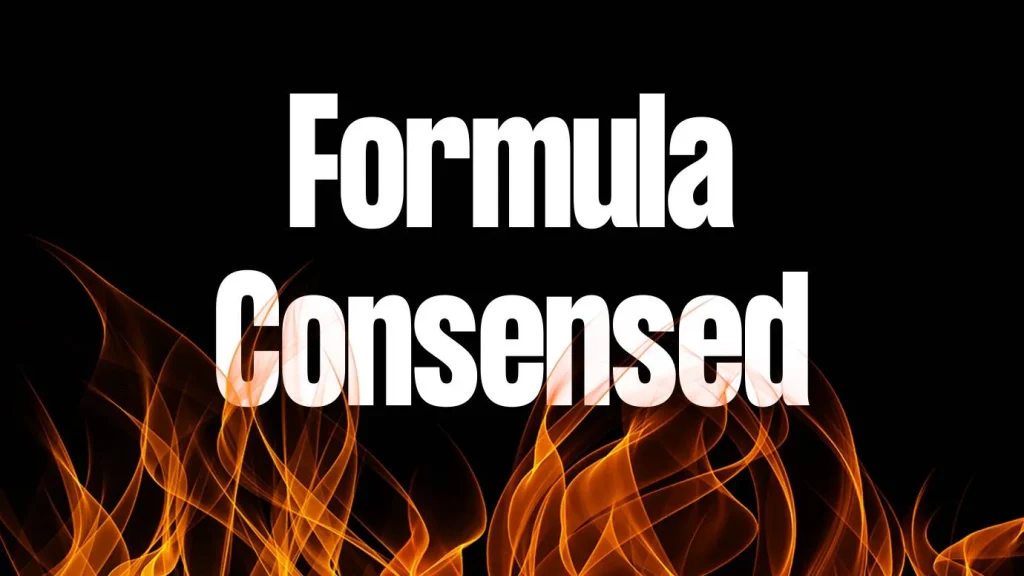
Mathieu Desjardins designed this nice and elegant design. Formula Consensed Font style has a strong modern feel to all letters, along with nice strokes. This is why modern designers prefer this typeface.
Using this style can make a design stand out and unique. Hence, once a designer understands its competences, they will use it in many designs.
Considering its keen features, it would be perfect when paired with demon slayer font to make amazing designs for the project.
In addition to bold editorial statements and graphic-heavy prints, this typeface can also be used as a simple logo and simple branding. Your designs will stand out and be unique with this new type.
What Are the Qualities of Formula Consensed Font?
Advantages of Using Formula Consensed Font
The letters of font demonstrate its versatility. With full concentration and experience, each letter has been created. Therefore, its letters didn’t contain any errors.
In addition to creating covers and poster designs, you can also create business cards, logos, and product designs with clean and elegant textures. Web development can also be done on it.
The letters of this typeface, have a very unique look there are few characters in every letter of this typeface that has the right height, and width, and idealized space between the letters. The design of this typeface makes this lettering an incredible choice for dynamic projects.
There are available a wide range of languages supported by this amazing font. This will allow you to create various designs in different languages.
Font information
| Name | Formula Consensed Font |
| Designer | Mathieu Desjardins |
| Style | Sans serif |
Where we can use Formula Consensed Font?
This classic typeface is perfect for use in both formal and informal content. Many developers used this font for website designing, banner ad designing, title designing, and many more.
Is Formula Consensed Font a Google font?
Is Formula Consensed a proportionally spaced typeface?
The typeface is proportionally spaced in style. This means that the glyphs are based on the proportions of the stylish body, which makes them easy to read.